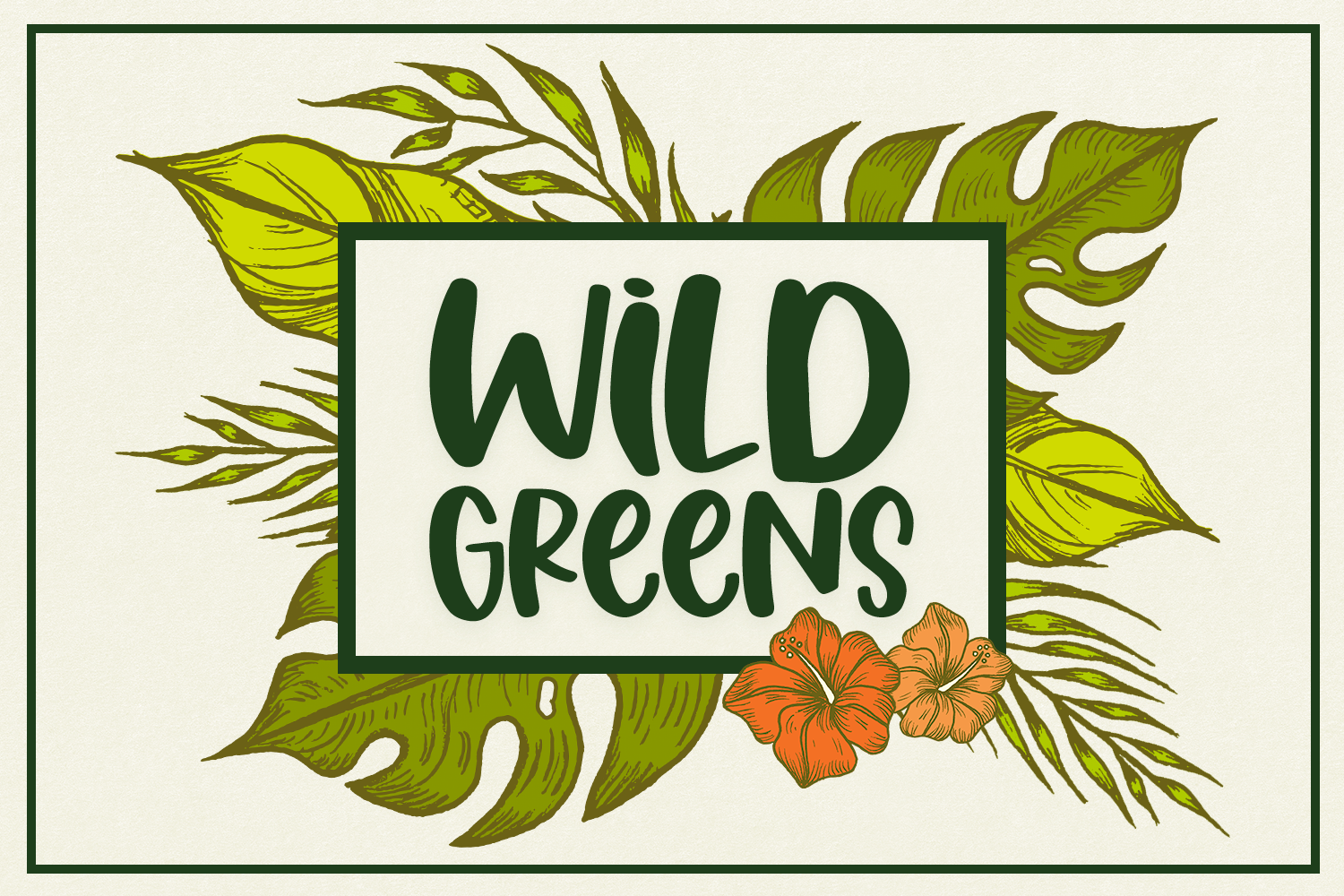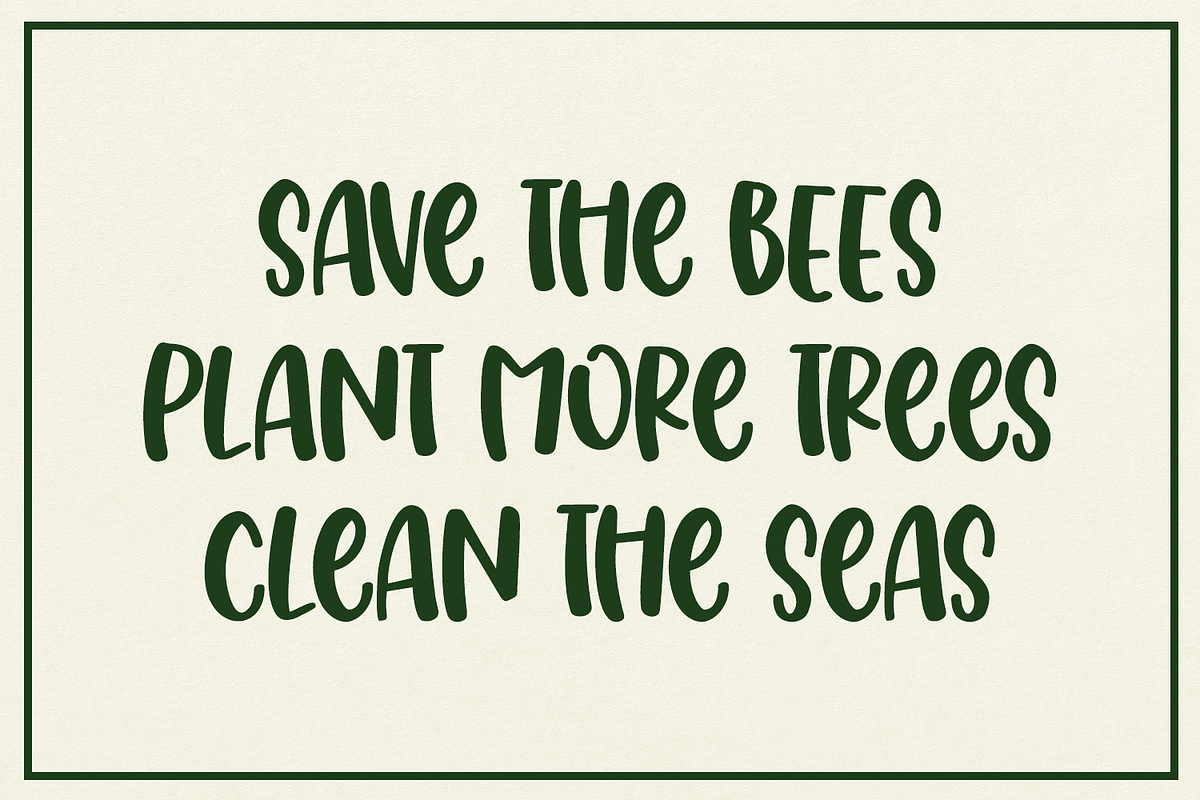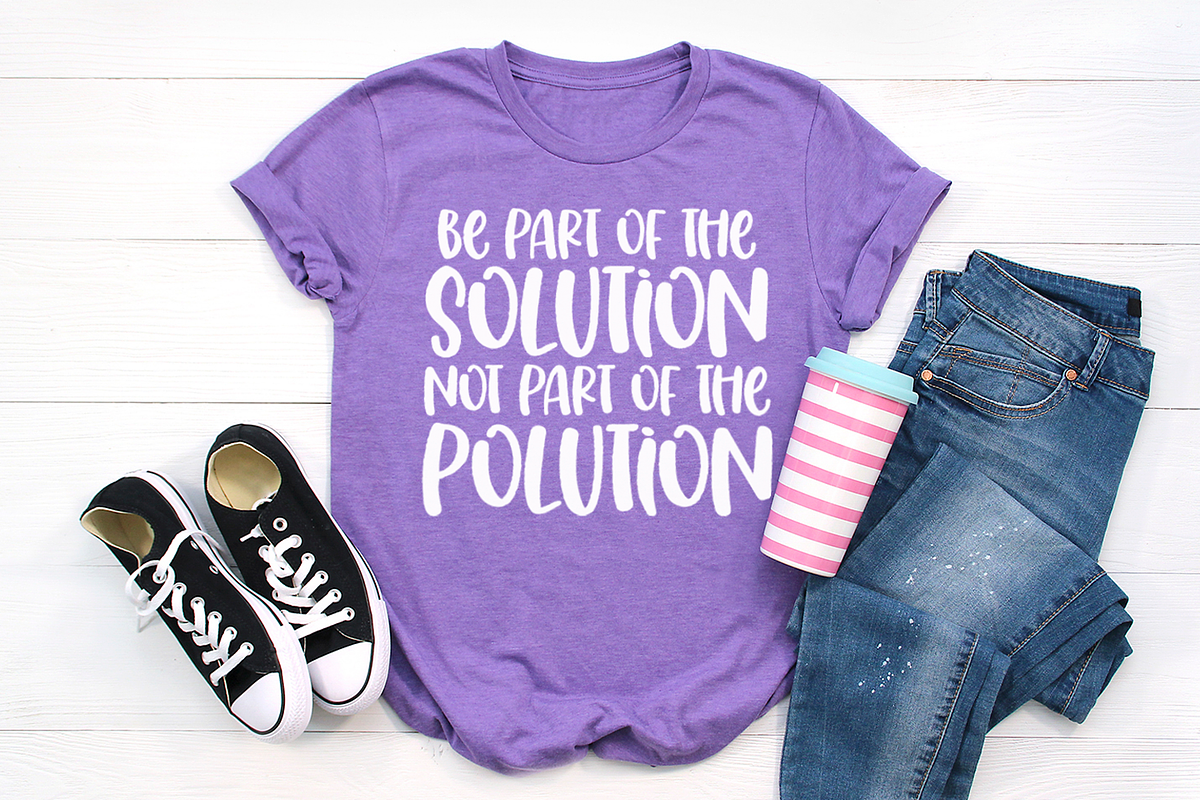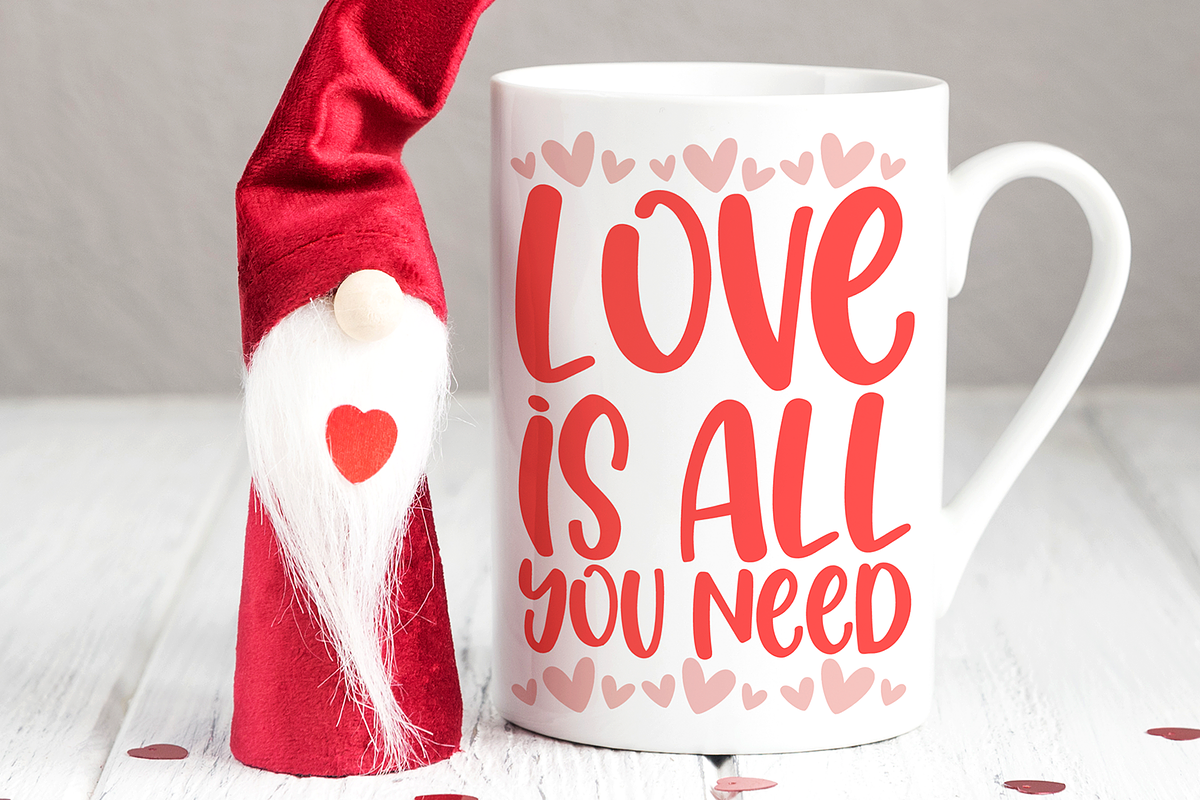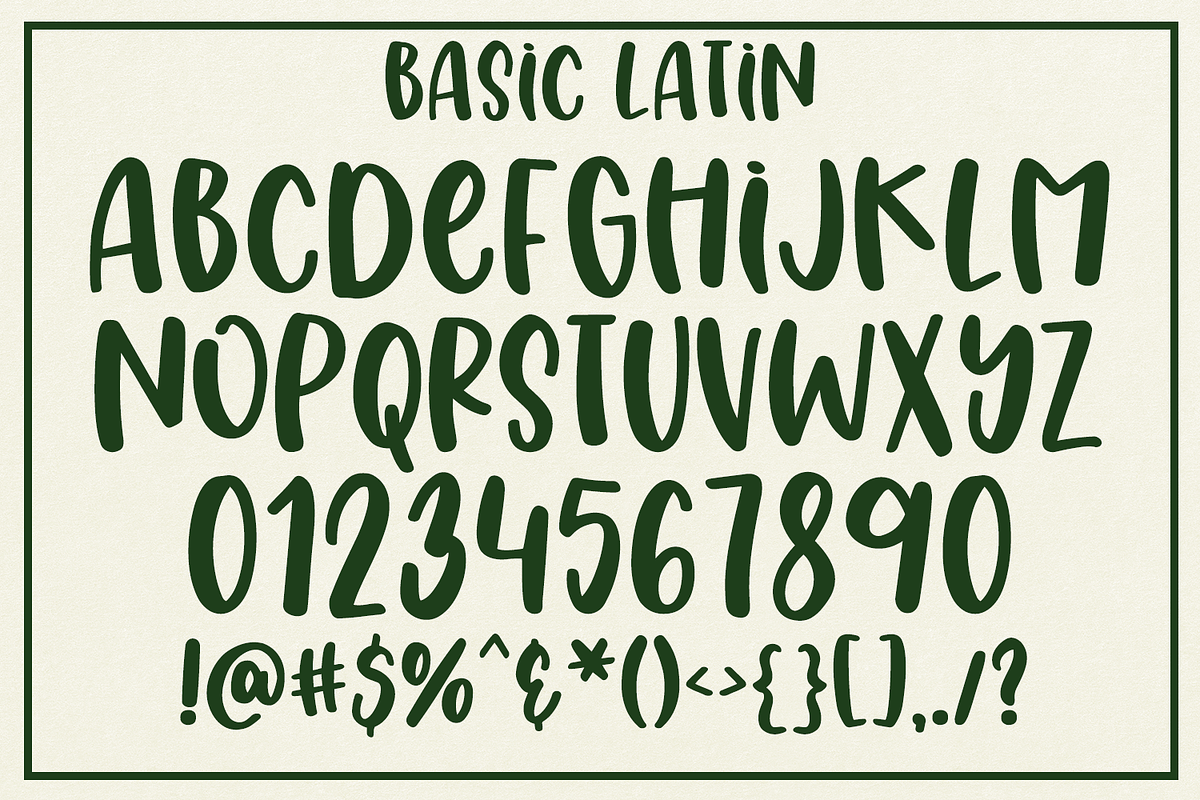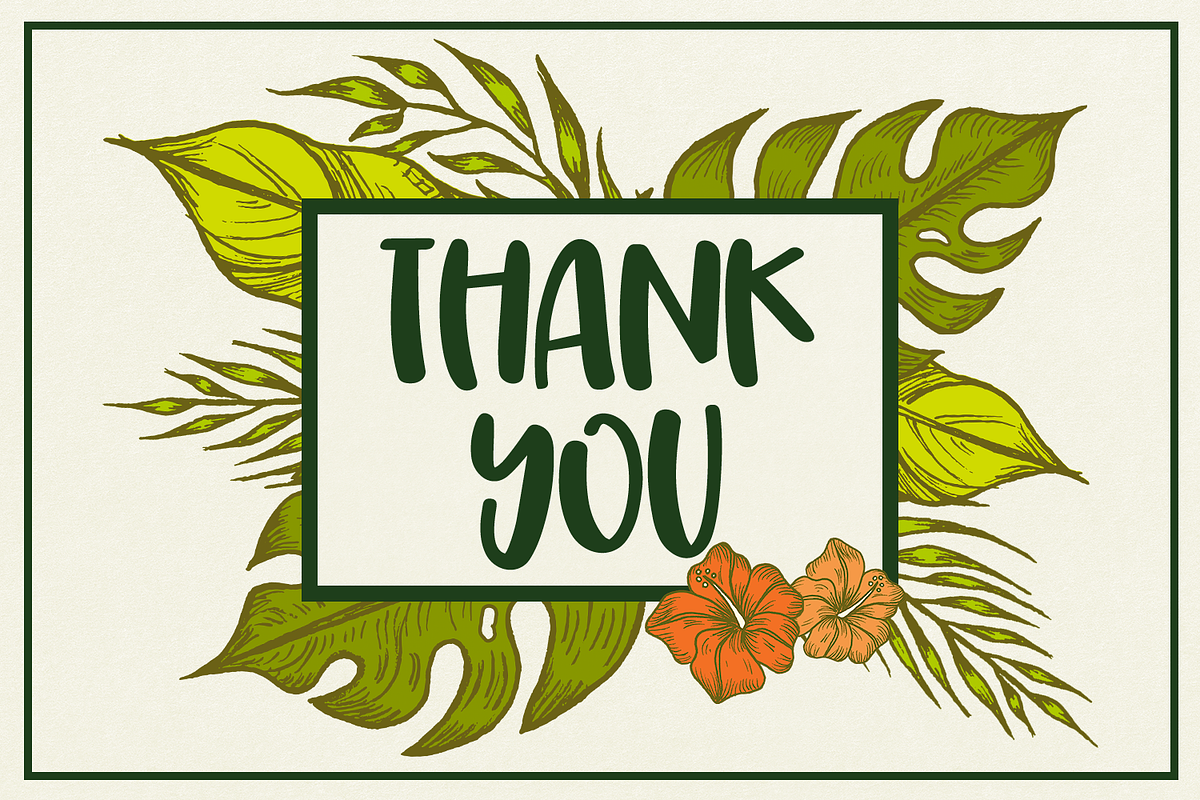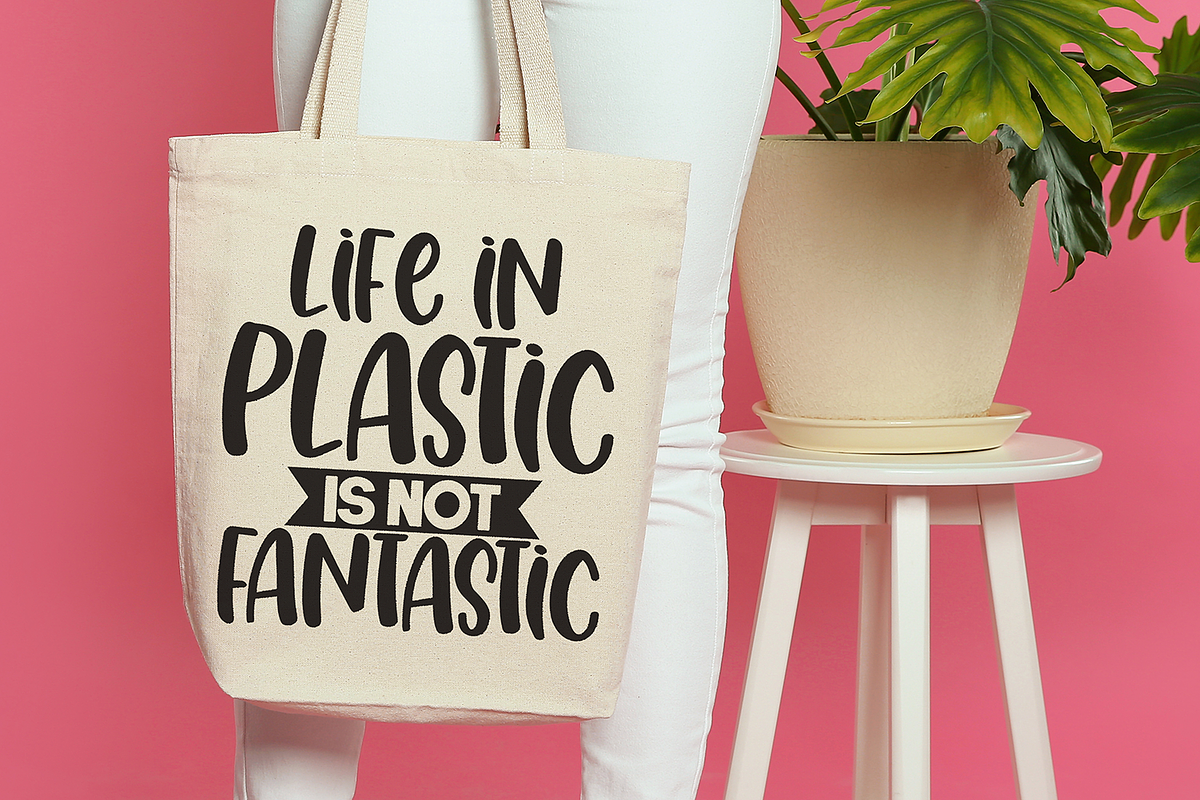
Wild Greens Font
Meet Wild Greens, an expressive handwritten font. This font is perfect for your next project! Try it on packaging, merch, or on a logo!
This font has 403 Glyphs including:
-Basic Latin
-Latin 1 Supplement
-Latin Extended-A
-Standard Ligatures
-Stylistic Alts (Salt)